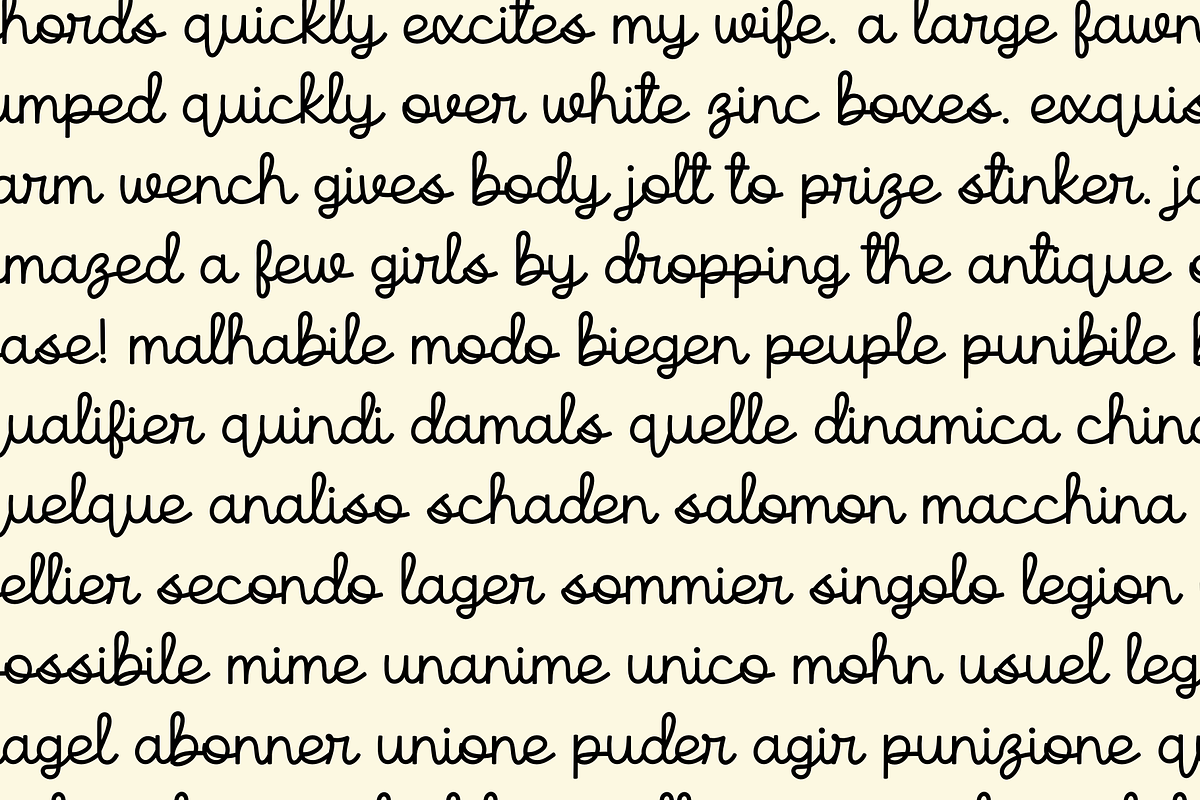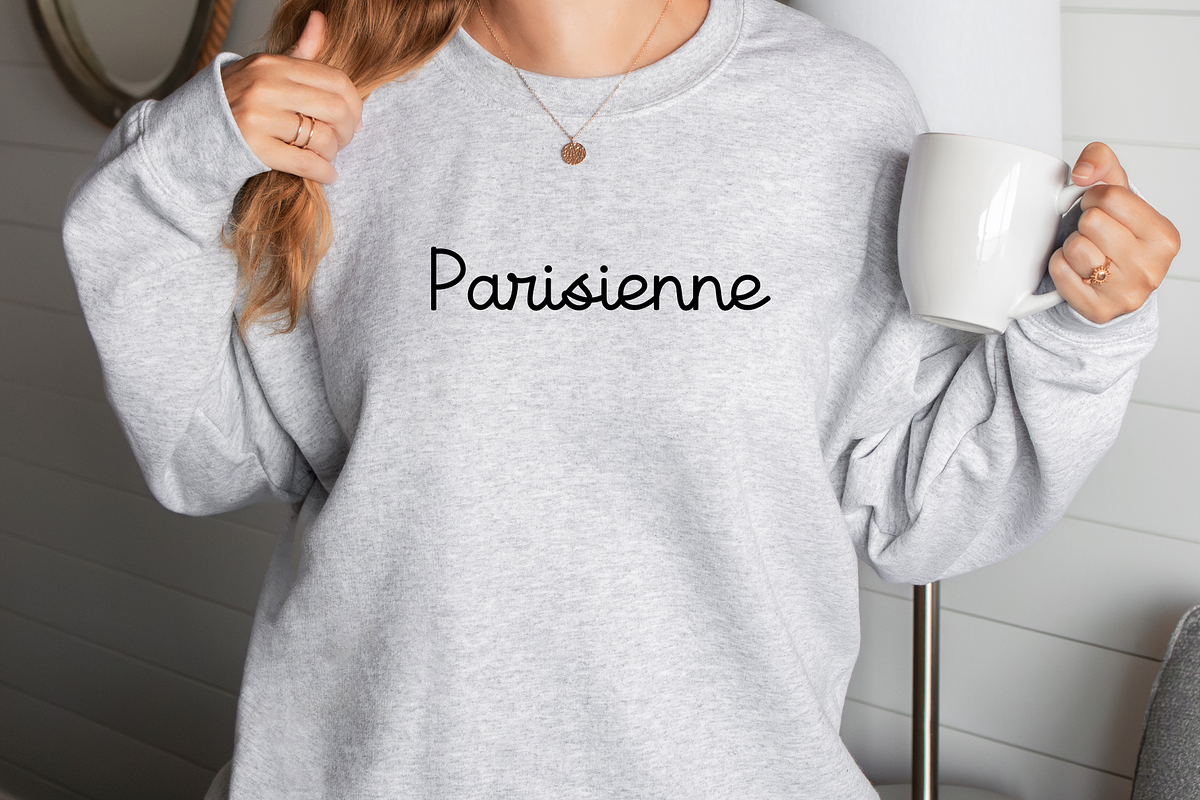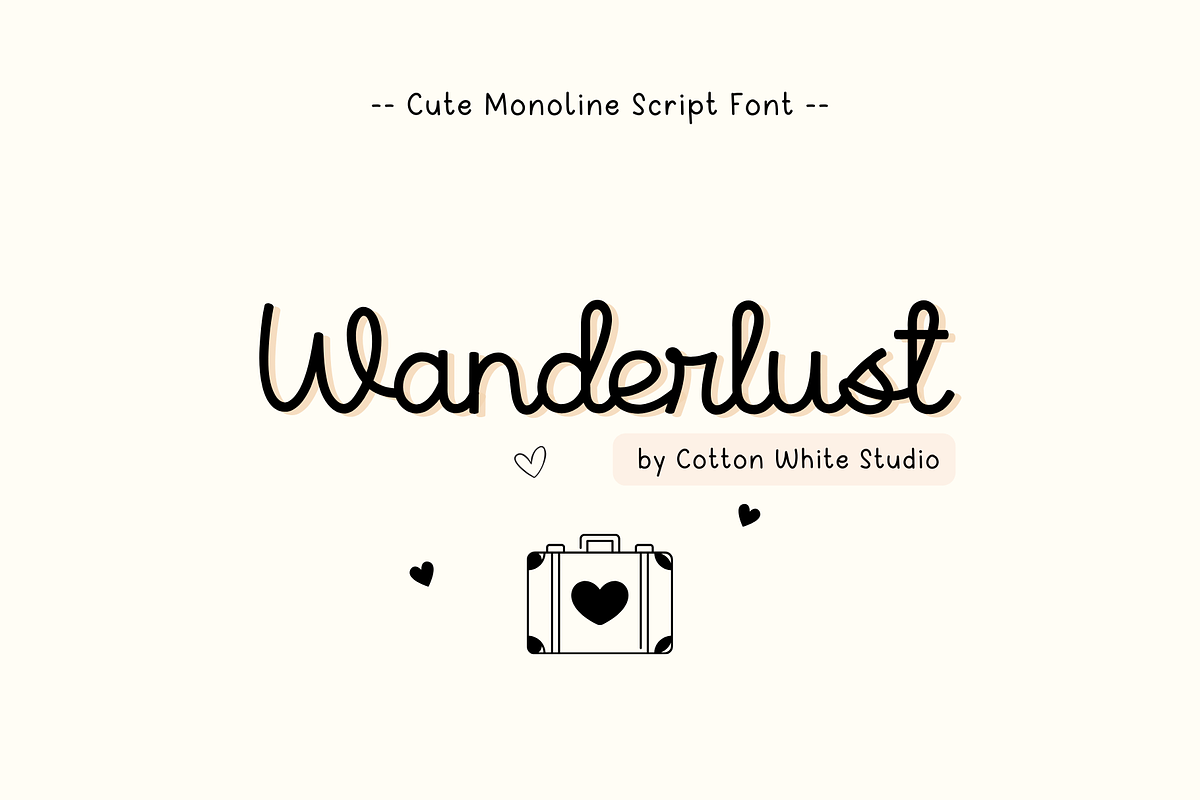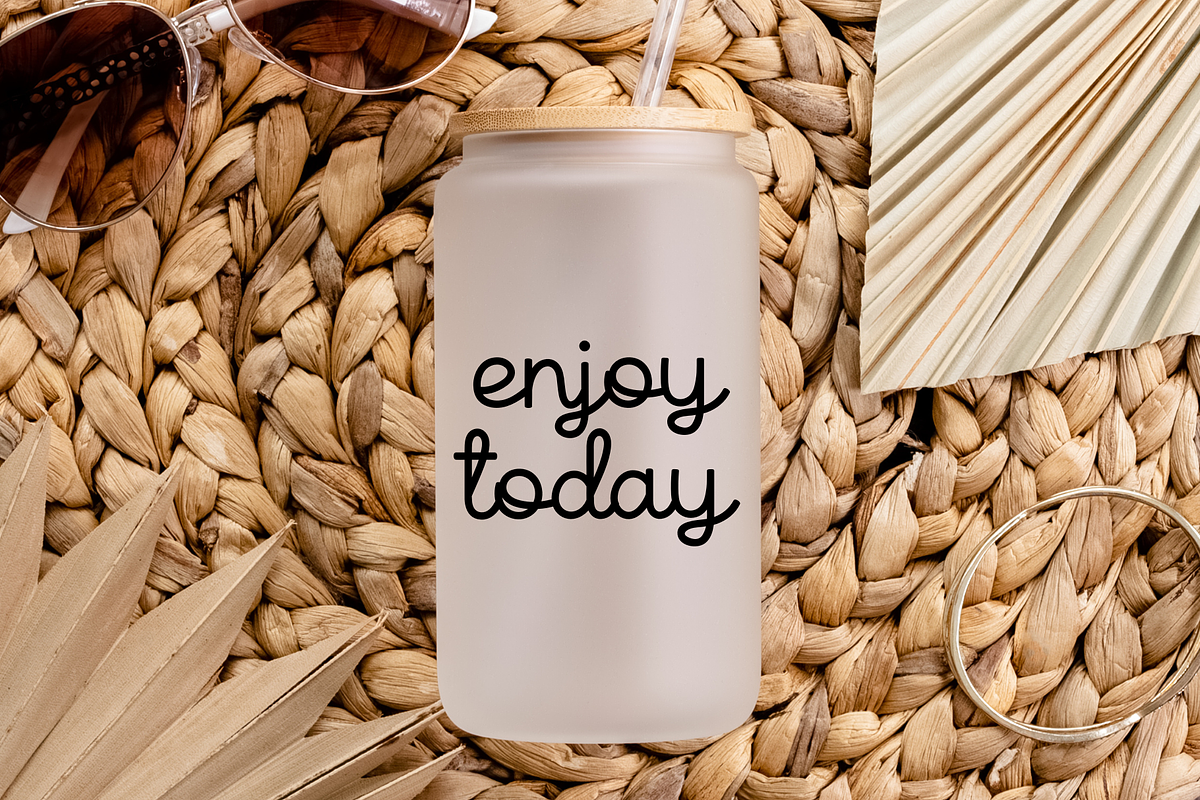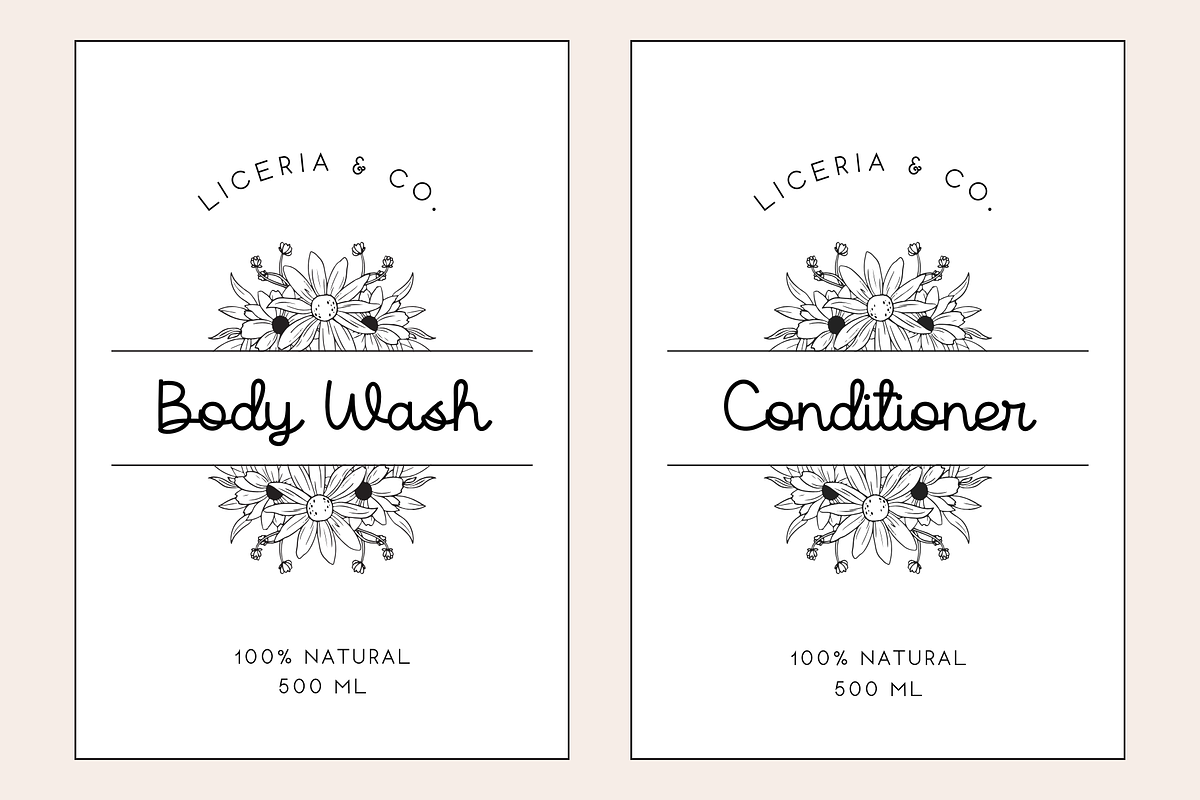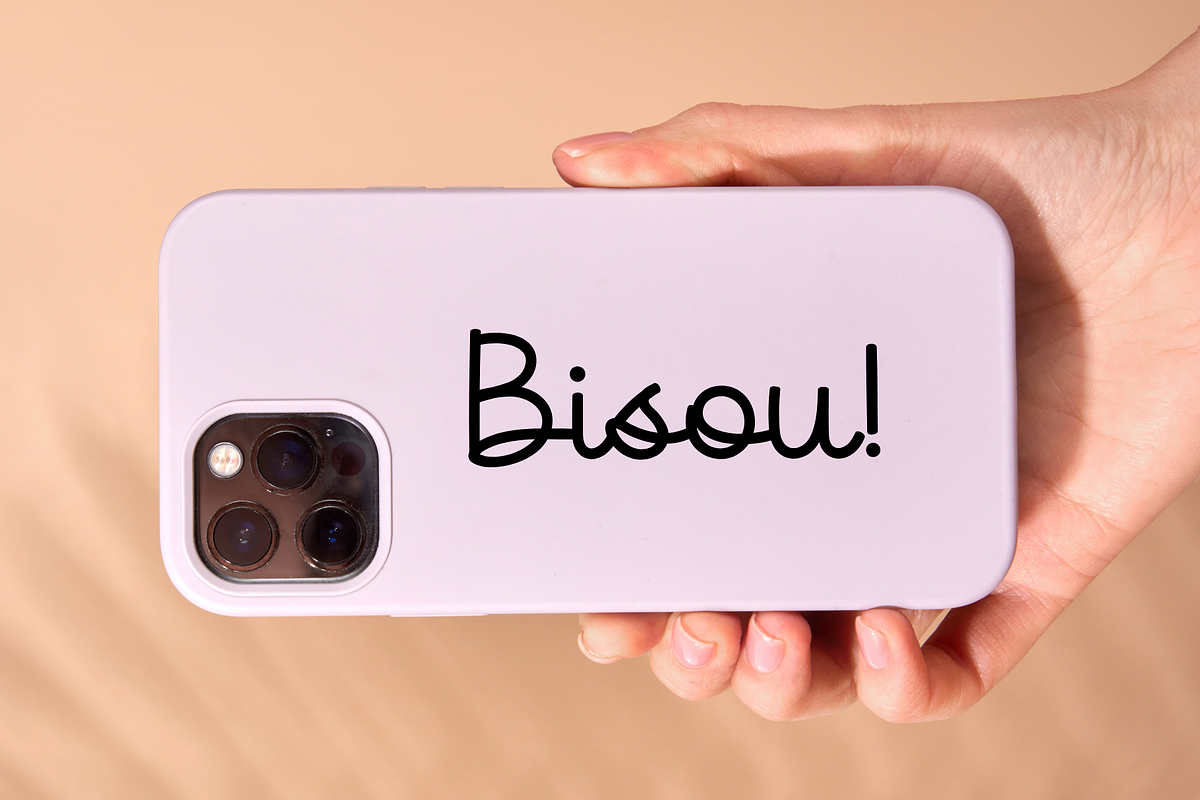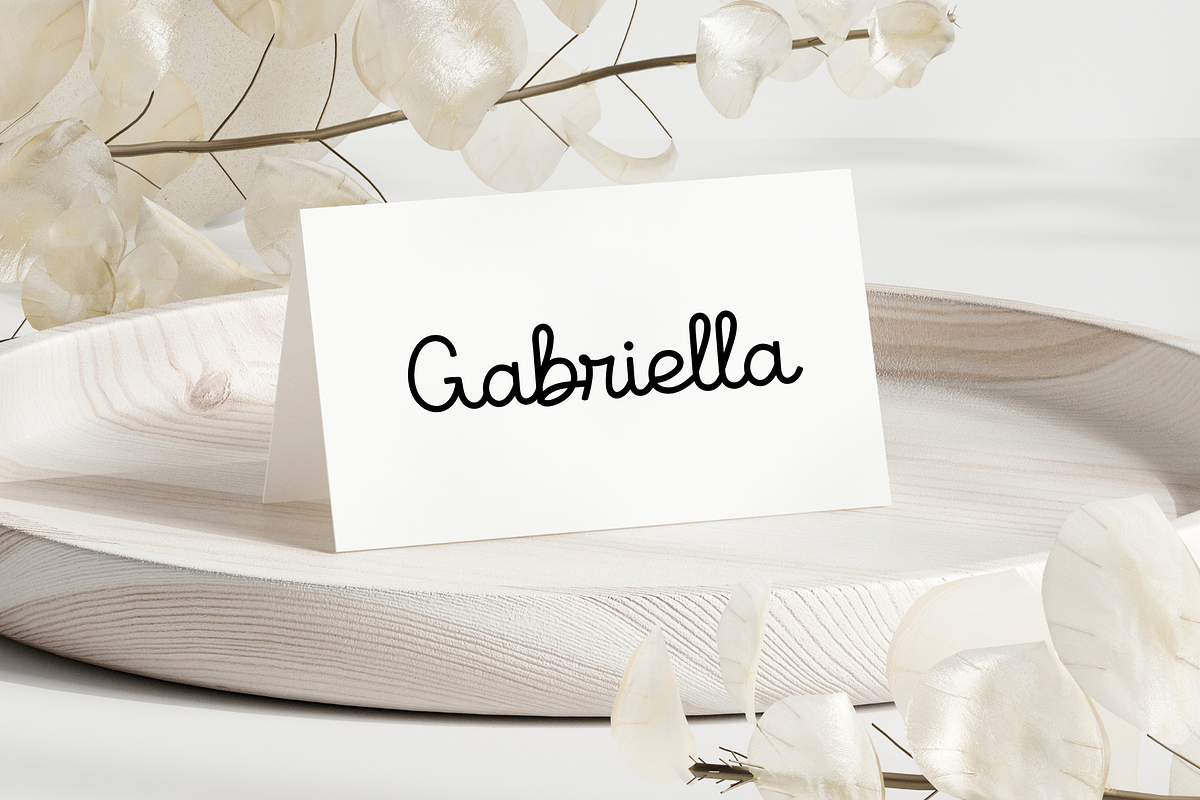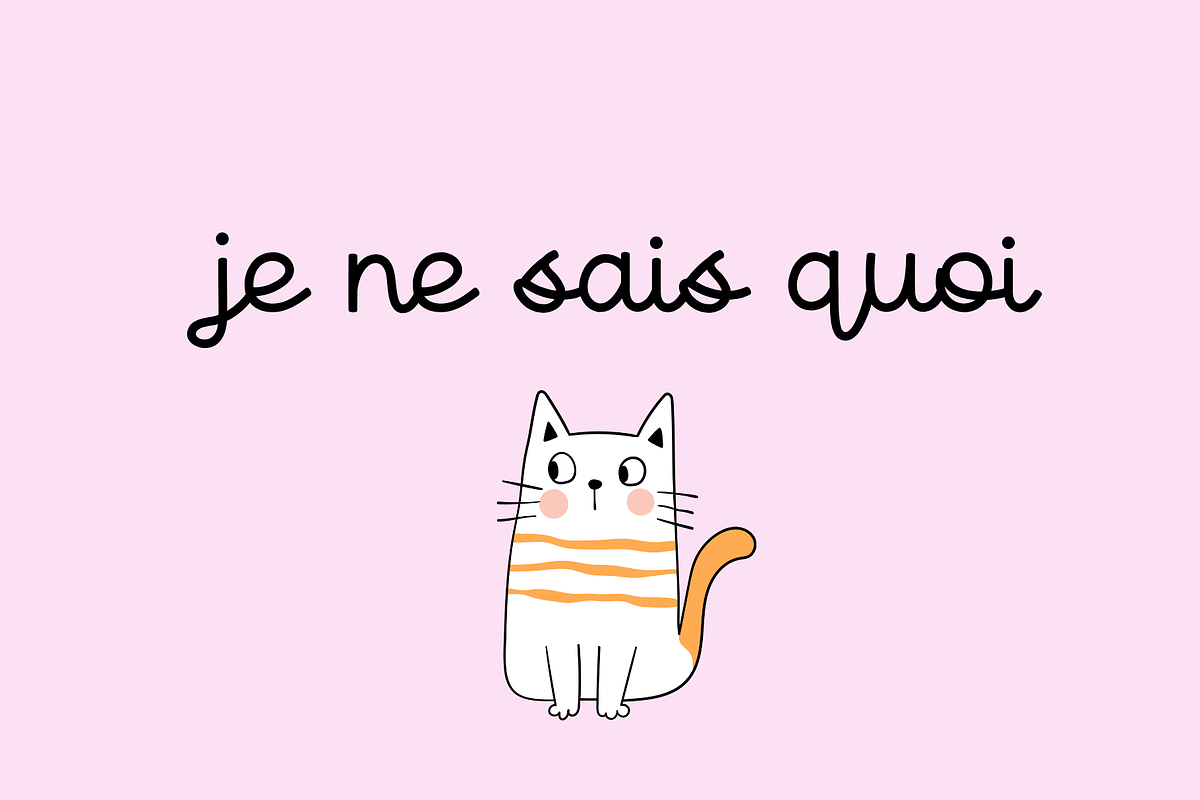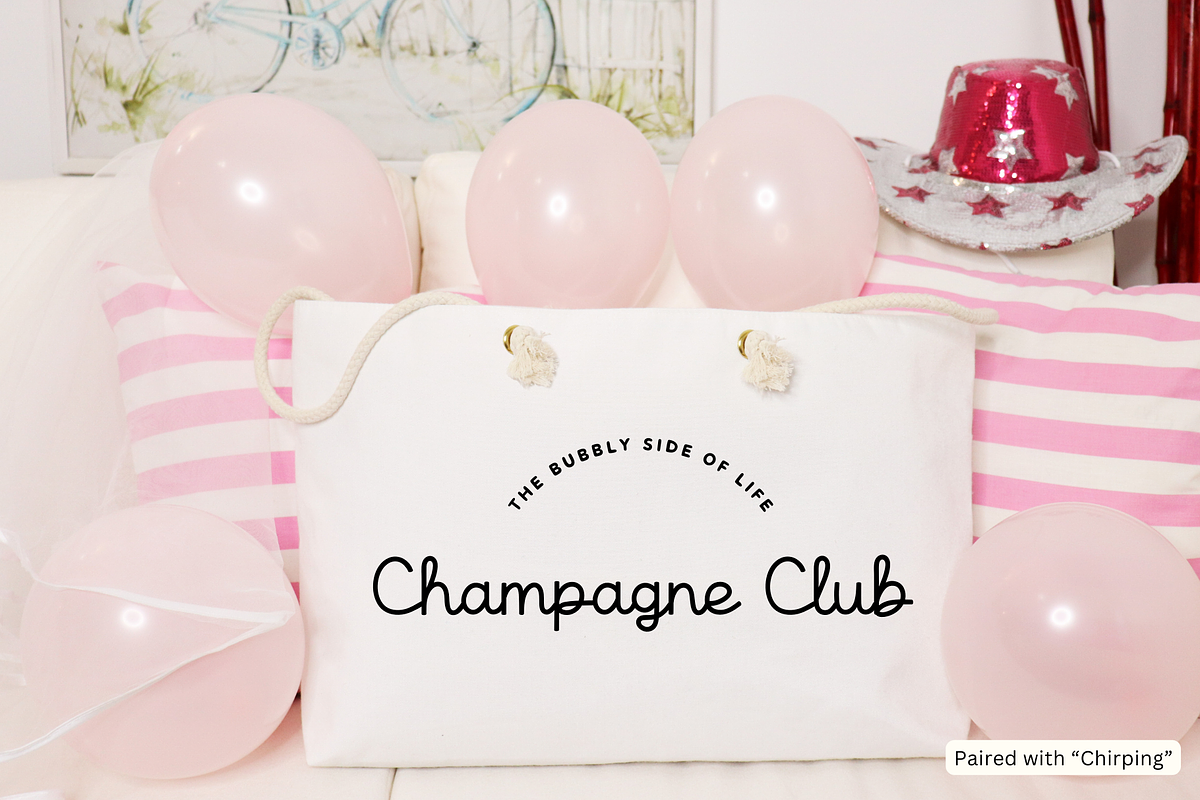
Wanderlust Cute Script Font
Add a beautiful, hand crafted look to your work with a fabulously scripted font! A hand drawn elegant font that will add a uniq touch to your work. Perfect for branding, invitations, blogs, planners and much more.